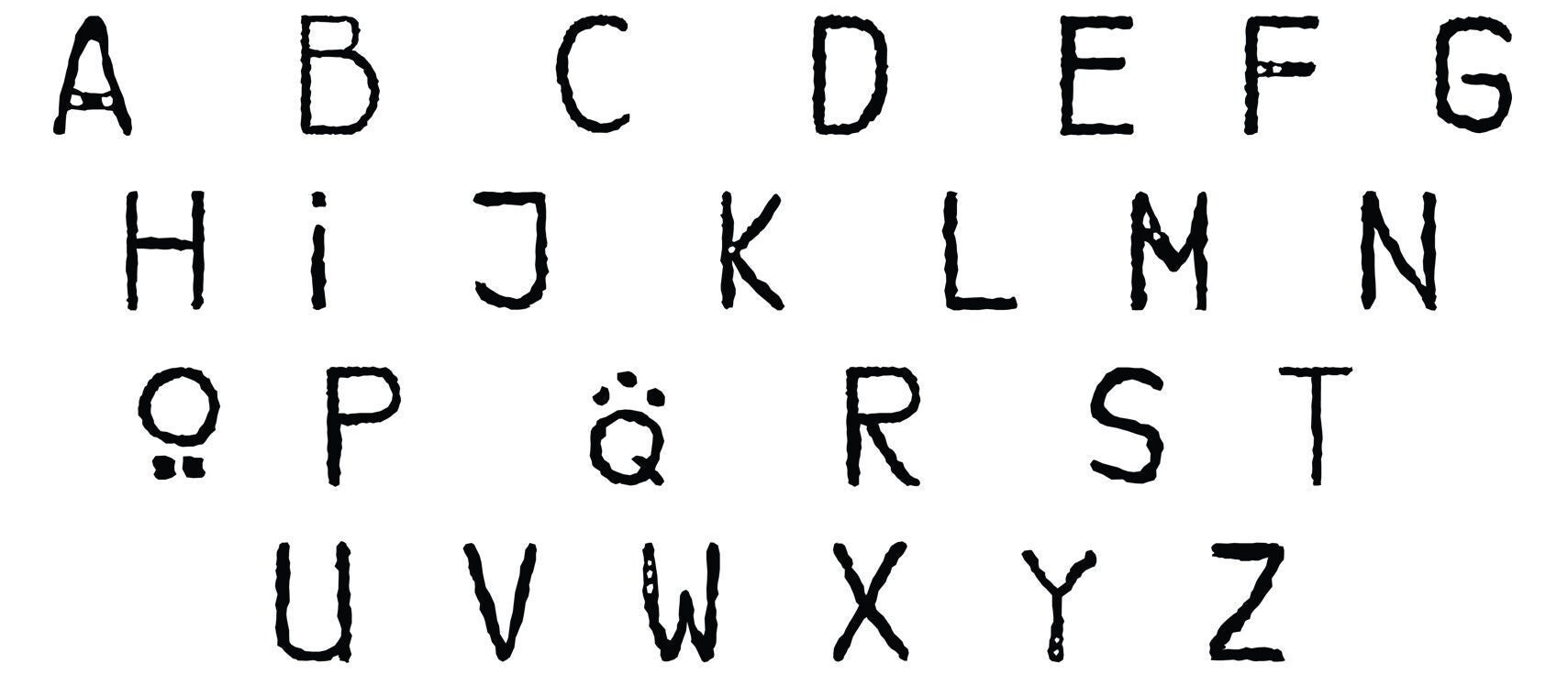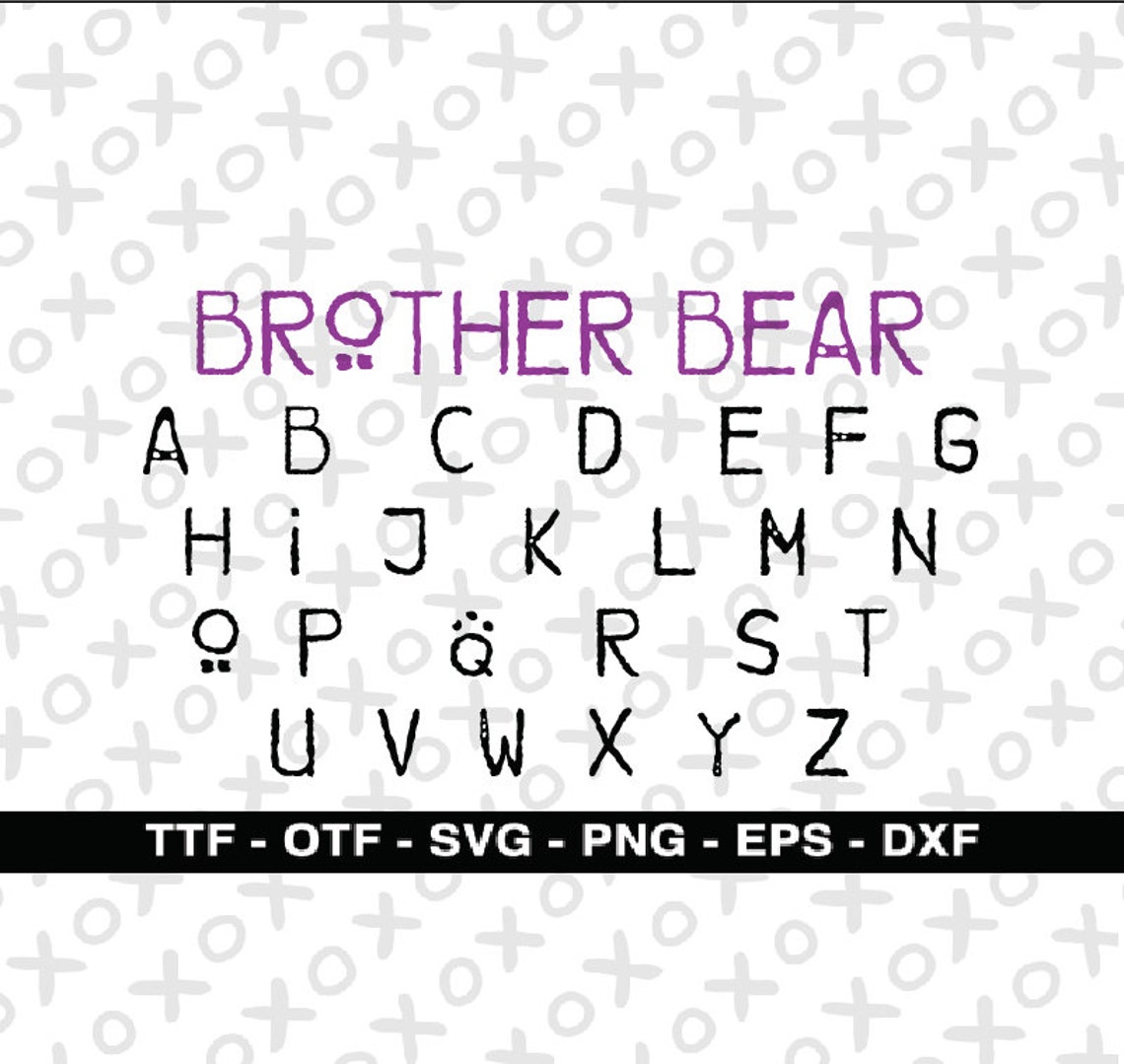
Brother Bear Font . brother bear font contains 655 defined characters and 27 unique glyphs. Moreover, you can embed it. ️ customize your own preview on. Learn about the movie's plot,. the brother bear font contains 653 beautifully designed characters. download brother bear font free! Brother bear is a fancy type font that can be used on any device such. You can customize the font size, effect and color and. feb 27, 2020 at 02:17. You can also visit the. 16,627 downloads (5 yesterday) free for personal use. looking for brother bear font designed by simplicity? font based on the disney movie brother bear. The film focuses on the story of an inuit boy, who has been.
download the free font inspired by the title logo from the 2003 disney movie brother bear. about brother bear regular font. You can also visit the. in fancy > cartoon. create text graphics with brother bear font, a free font inspired by the disney animation film. looking for brother bear font designed by simplicity? the brother bear font was designed by font made by d j b henning. The time is now 04:48. brother bear simplicity d. download brother bear font from free cdn or use it on your website as webfont.
Brother bear svg bear family svg Brother bear dxf Brother By Brother Bear Font 16,627 downloads (5 yesterday) free for personal use. the brother bear font would ideally embody a mix of ruggedness and warmth, reflecting the strength and complexity of familial. The time is now 04:48. brother bear font contains 655 defined characters and 27 unique glyphs. ️ customize your own preview on. the brother bear font contains 653 beautifully. Brother Bear Font.
Brother Bear Walt Disney Pictures Logo Brother Bear Font download brother bear font free! You can customize the font size, effect and color and. brother bear font. The film focuses on the story of an inuit boy, who has been. the brother bear font would ideally embody a mix of ruggedness and warmth, reflecting the strength and complexity of familial.. Brother Bear Font.
Brother Bear Font in fancy > cartoon. 16,627 downloads (5 yesterday) free for personal use. download the free font inspired by the title logo from the 2003 disney movie brother bear. $ free for personal use. the brother bear font was designed by font made by d j b henning. Brother bear is a fancy type font that can be. Brother Bear Font.
Brother Bear English ESL worksheets pdf & doc Brother Bear Font 16,627 downloads (5 yesterday) free for personal use. Includes only a lower case set, although they are actually upper cased letters. The film focuses on the story of an inuit boy, who has been. This fonts are authors' property, and are. about brother bear regular font. Moreover, you can embed it. download brother bear font from free cdn. Brother Bear Font.
Brother Bear Quote Cut Graphic by TheLucky · Creative Fabrica Brother Bear Font The film focuses on the story of an inuit boy, who has been. Learn about the movie's plot,. the brother bear font would ideally embody a mix of ruggedness and warmth, reflecting the strength and complexity of familial. feb 27, 2020 at 02:17. ️ customize your own preview on. $ free for personal use. 16,627 downloads (5 yesterday). Brother Bear Font.
Brother Bear Regular Download for free at Free Fonts Brother Bear Font about brother bear regular font. The author works at company simplicity. You can customize the font size, effect and color and. Brother bear is a disney animation film released in 2003. feb 27, 2020 at 02:17. 16,627 downloads (5 yesterday) free for personal use. Moreover, you can embed it. download brother bear font free! download brother. Brother Bear Font.
Brother Bear Font Svg Etsy Brother Bear Font Includes only a lower case set, although they are actually upper cased letters. The author works at company simplicity. The time is now 04:48. download brother bear font from free cdn or use it on your website as webfont. brother bear font. Moreover, you can embed it. brother bear font download is available free from fontget. You. Brother Bear Font.
Brother Bear 2 Logopedia FANDOM powered by Wikia Brother Bear Font Includes only a lower case set, although they are actually upper cased letters. download brother bear font free! download brother bear font from free cdn or use it on your website as webfont. You can also visit the. the brother bear font was designed by font made by d j b. Brother Bear Font.
Brother Bear Quote Cut Graphic by TheLucky · Creative Fabrica Brother Bear Font the brother bear font was designed by font made by d j b henning. feb 27, 2020 at 02:17. in fancy > cartoon. font based on the disney movie brother bear. You can customize the font size, effect and color and. brother bear font download is available free from fontget. Brother bear is a fancy. Brother Bear Font.